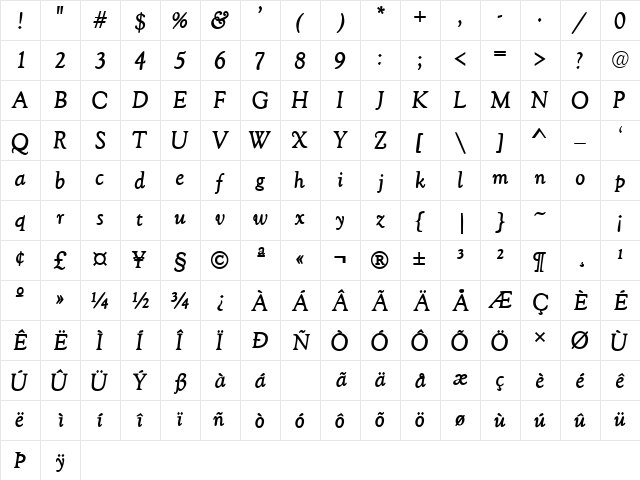
GoudyRetrospectiveSSK wears its vintage influences proudly, with letterforms that recall mid-century signage, classic packaging, and nostalgia-driven design. The slanted form adds forward momentum and visual energy. Its bold stroke weight gives it real presence on the page.
Font Pairing: Combine GoudyRetrospectiveSSK with a simple slab or neutral sans - period-accurate companions reinforce the vintage feel without competing for attention.
Pro Tip: Lean into GoudyRetrospectiveSSK's period character by pairing it with aged paper textures, muted colour palettes, and vintage illustration styles.